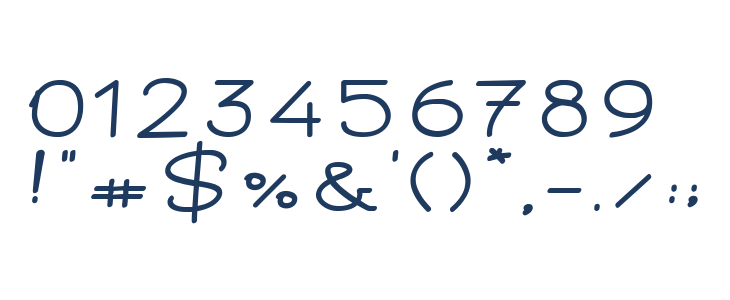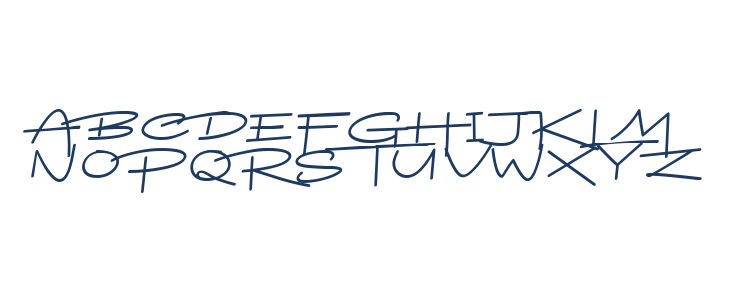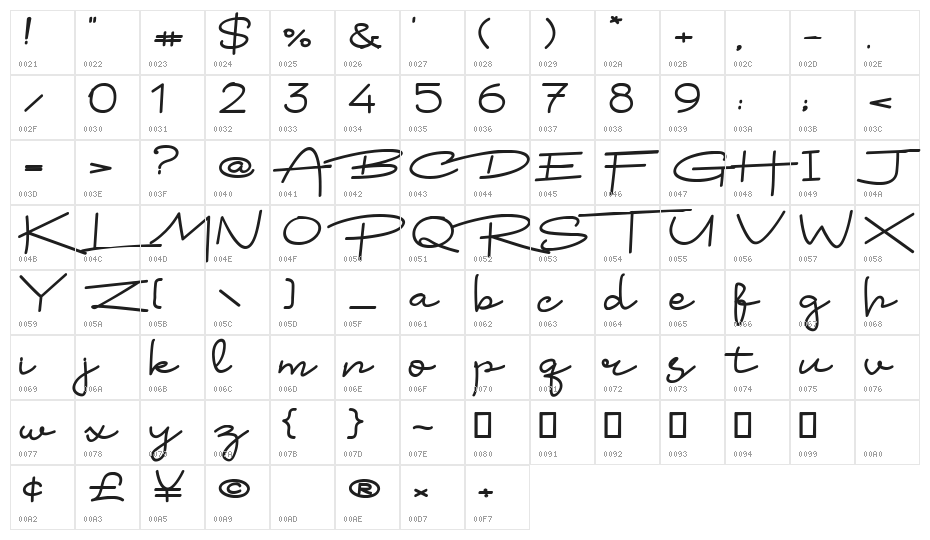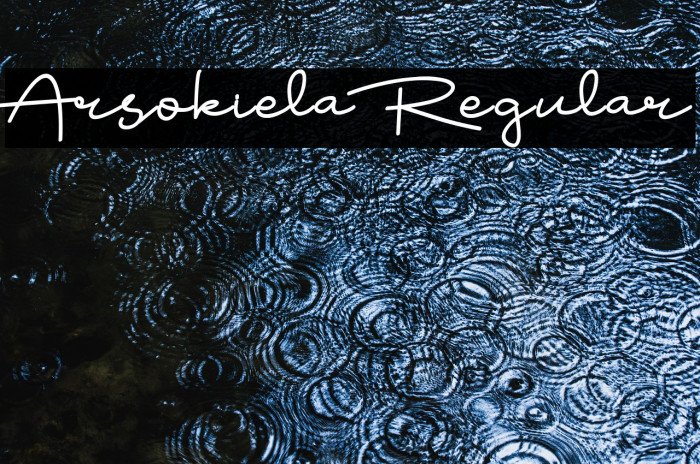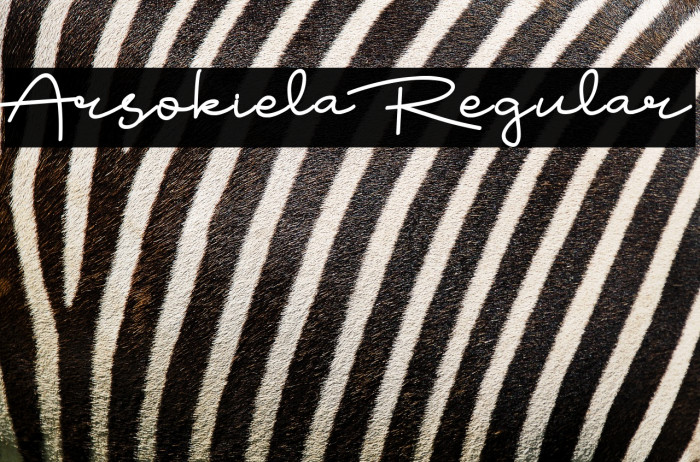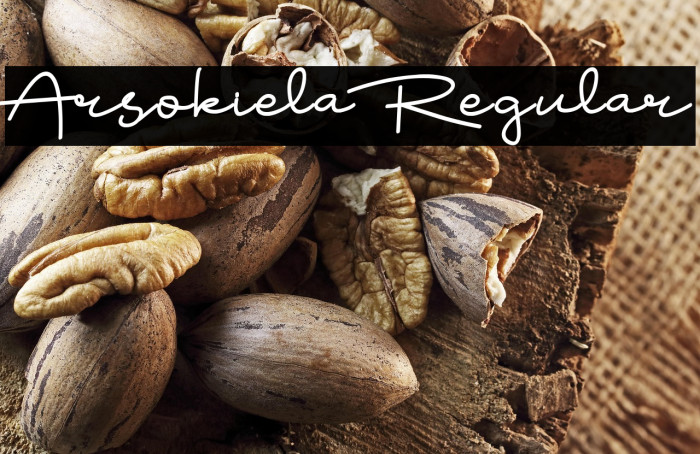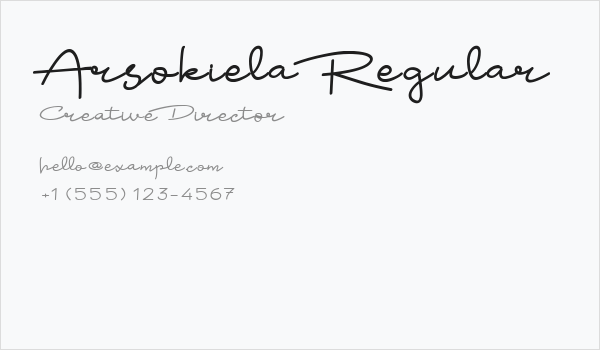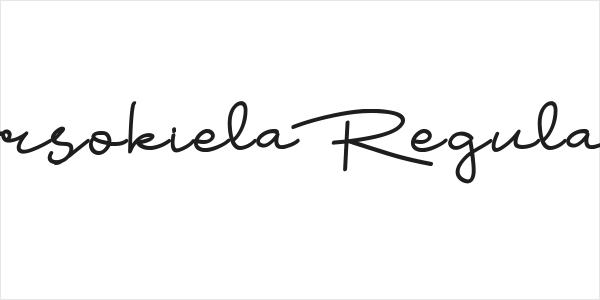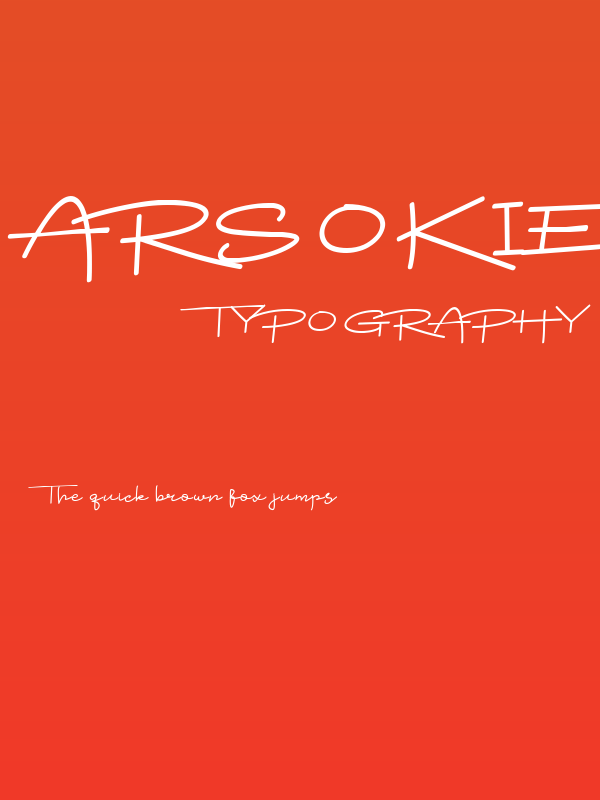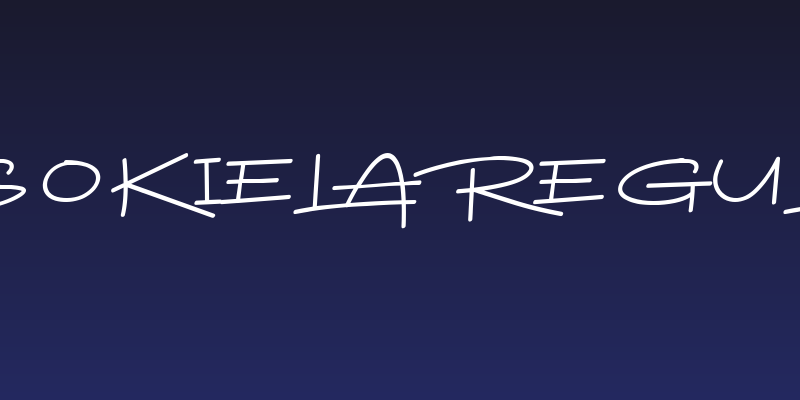
Arsokiela Regular Font
Arsokiela Regular Description
A handwritten script font with a casual, flowing style and monoline strokes. The uppercase letters are angular and slightly disconnected, while the lowercase letters are more connected and rounded, giving a natural handwriting feel. The numerals and punctuation maintain the same fluid, informal appearance.
| Overall Style | Casual, Handwritten, Modern |
| Use Case | Logos, Headlines, Short text, Invitations |
| Proposed Projects | Greeting cards, invitations, personal branding, quotes, social media graphics. |